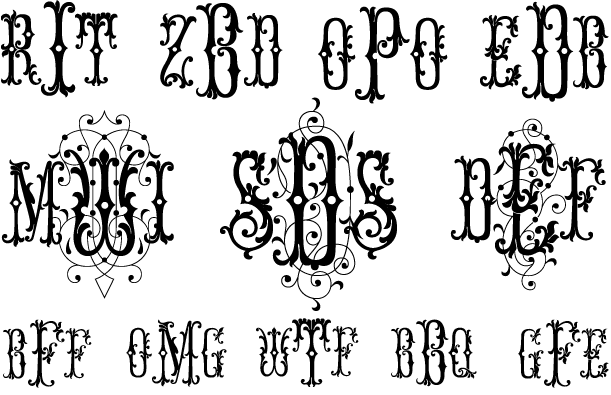
Manoir Monogram
About Manoir Monogram
The source of inspiration for Manoir Monogram is a distinguishingly narrow Victorian initial letterset adorned with flourishes from a vintage embroidery publication. This digital revival splits the letterset from its flourished background to give you…